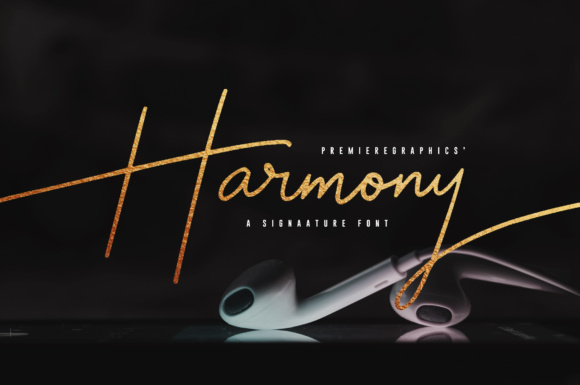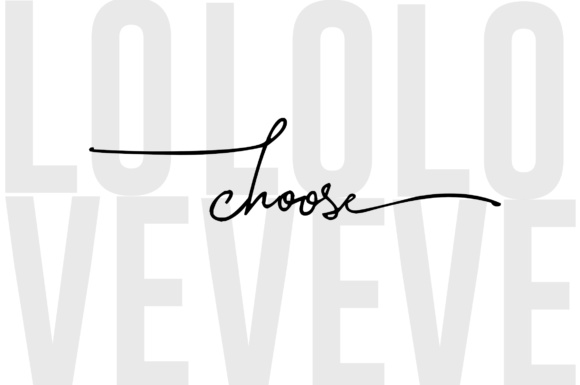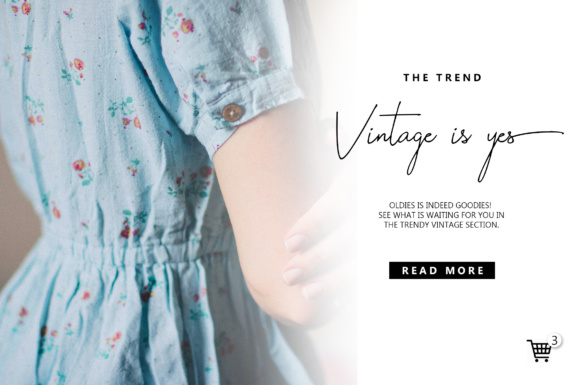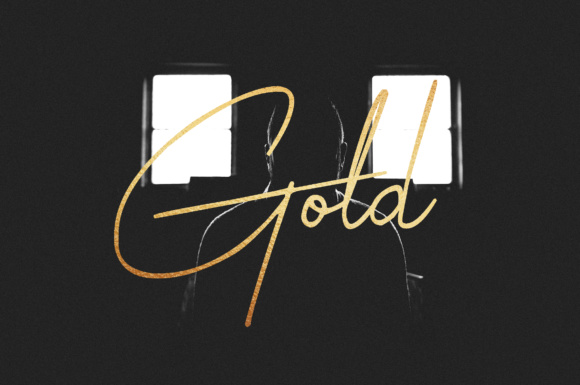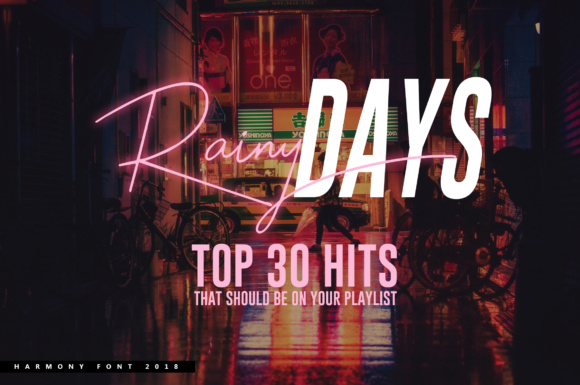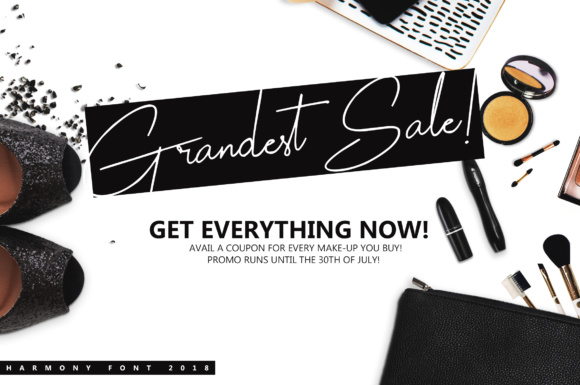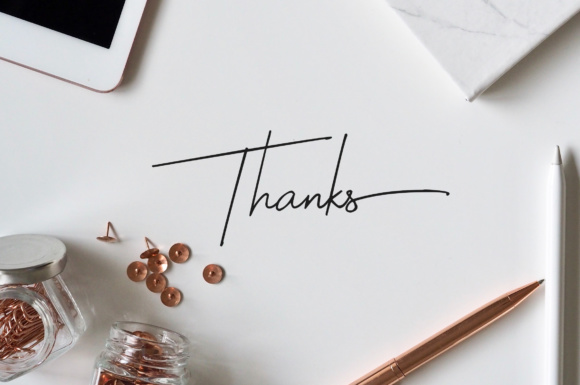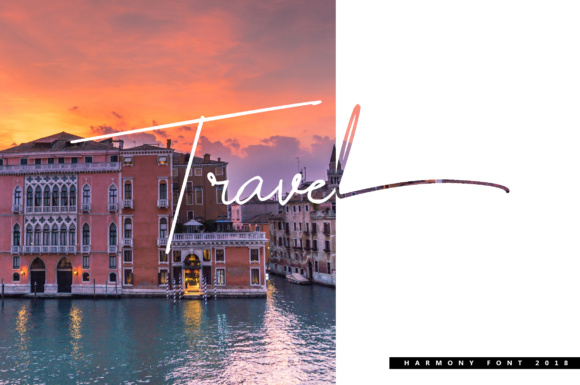
Harmony Script Font
About Harmony Script Font
Harmony is a handy script font. With its signature style, Harmony is ought to give you the satisfaction you are looking for. Harmony can be used for many different designs such as: blogs, photography, murals, calligraphy, graphic designs, weddings and much more.